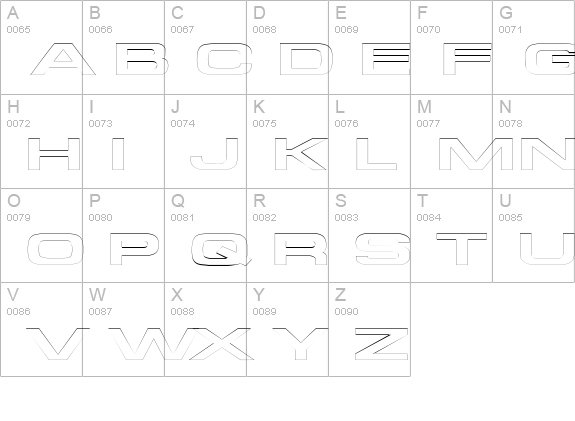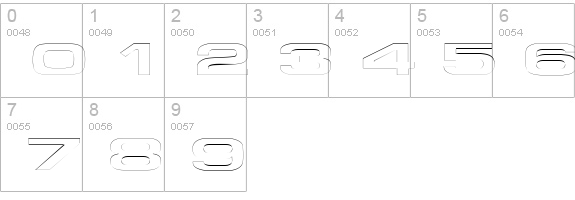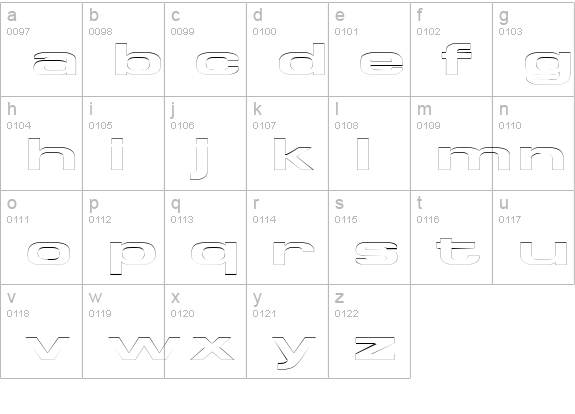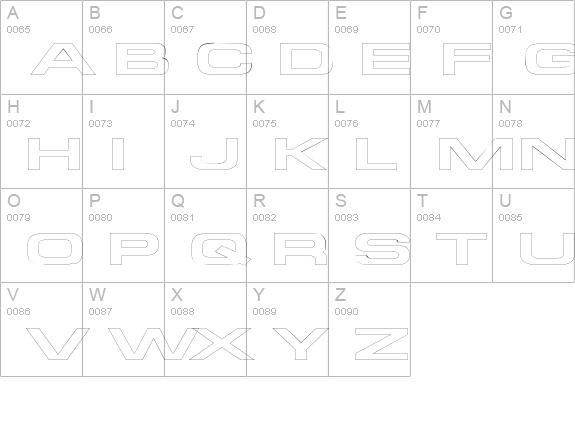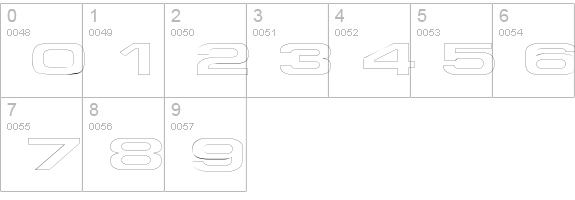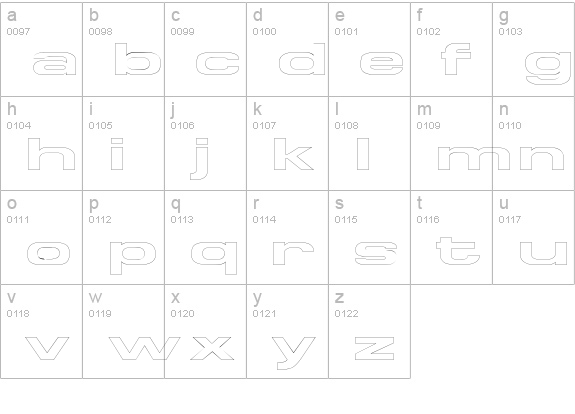
SupertouchOutline Font Details
SupertouchOutline font is a modern and stylish typeface that exudes elegance and sophistication. Its sleek lines and sharp edges make it perfect for a variety of design projects, from branding to editorial design. This versatile font offers a unique touch that will elevate any creative work to the next level. The best part? SupertouchOutline is completely free to download at FontsMarket.com. This means you can access this high-quality font without any cost, making it a valuable addition to your font library. Don't miss out on the opportunity to enhance your designs with the distinctive charm of SupertouchOutline font. Download it now and start creating stunning visuals that stand out from the crowd.